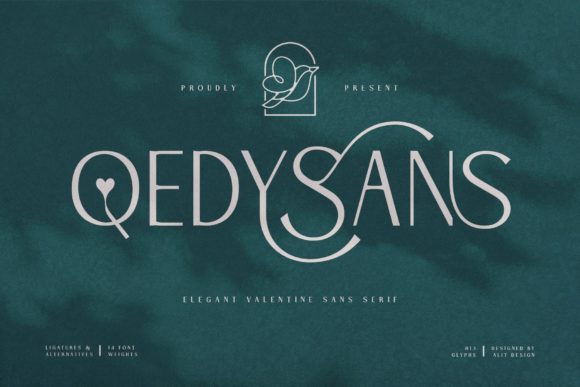
Prepare to be mesmerized by QEDYSANS, a captivating sans serif font that exudes elegance and romance. Dive into a world of creativity with QEDYSANS, the perfect choice for both body text and headers, allowing your words to dance with grace and charm.
Unleash your inner designer with QEDYSANS, the font that complements design concepts ranging from elegant and simple to minimalist and romantic. Picture your wedding invitations adorned with QEDYSANS' enchanting characters, or envision your shop signs radiating sophistication with its timeless appeal. Let QEDYSANS elevate your logotypes, transforming them into emblems of refined taste. Step into the digital realm and let QEDYSANS ignite your Instagram presence, captivating your audience with its alluring aesthetics.
QEDYSANS is a treasure trove of typographic possibilities, meticulously crafted to grant you access to a universe of glyphs and swashes with effortless ease. Unleash your creativity and let your designs blossom with the boundless potential of QEDYSANS.